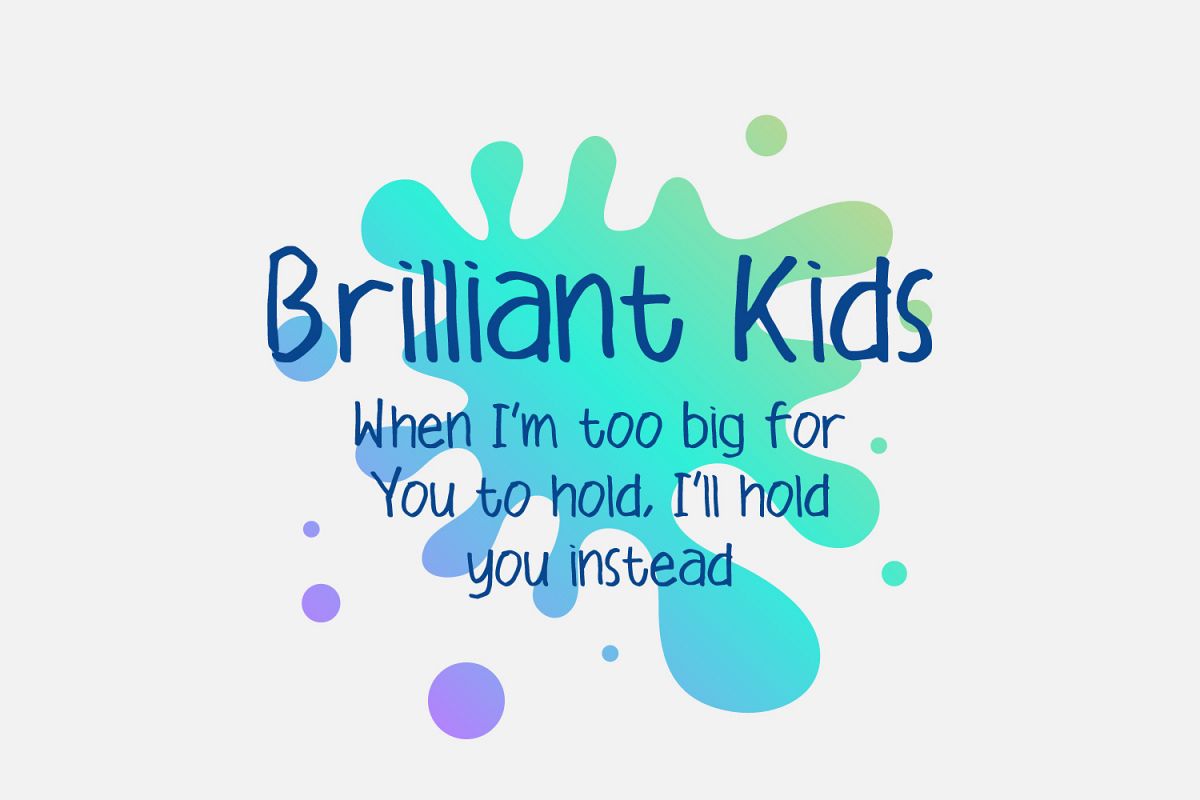
Malique
Malique-Regular
Malique-Outline
Malique is a kid-friendly and sweet handwritten font with a touch of elegance. Fall in love with its unique charm!